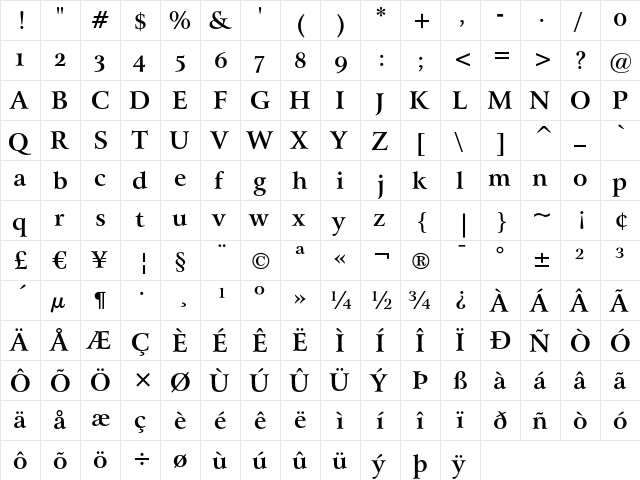
Bitstream Arrus Bold OSF Font Preview
Bitstream Arrus Bold OSF
Bitstream Arrus Bold OSF Font Details
Design Context for Bitstream Arrus Typeface
Bitstream Arrus takes a measured approach to typography — its balanced proportions and neutral character make it a reliable workhorse for both digital and print work. Its bold stroke weight gives it real presence on the page.
Pro Tip: Pair Bitstream Arrus with a font of contrasting weight or personality to build a more expressive typographic hierarchy.